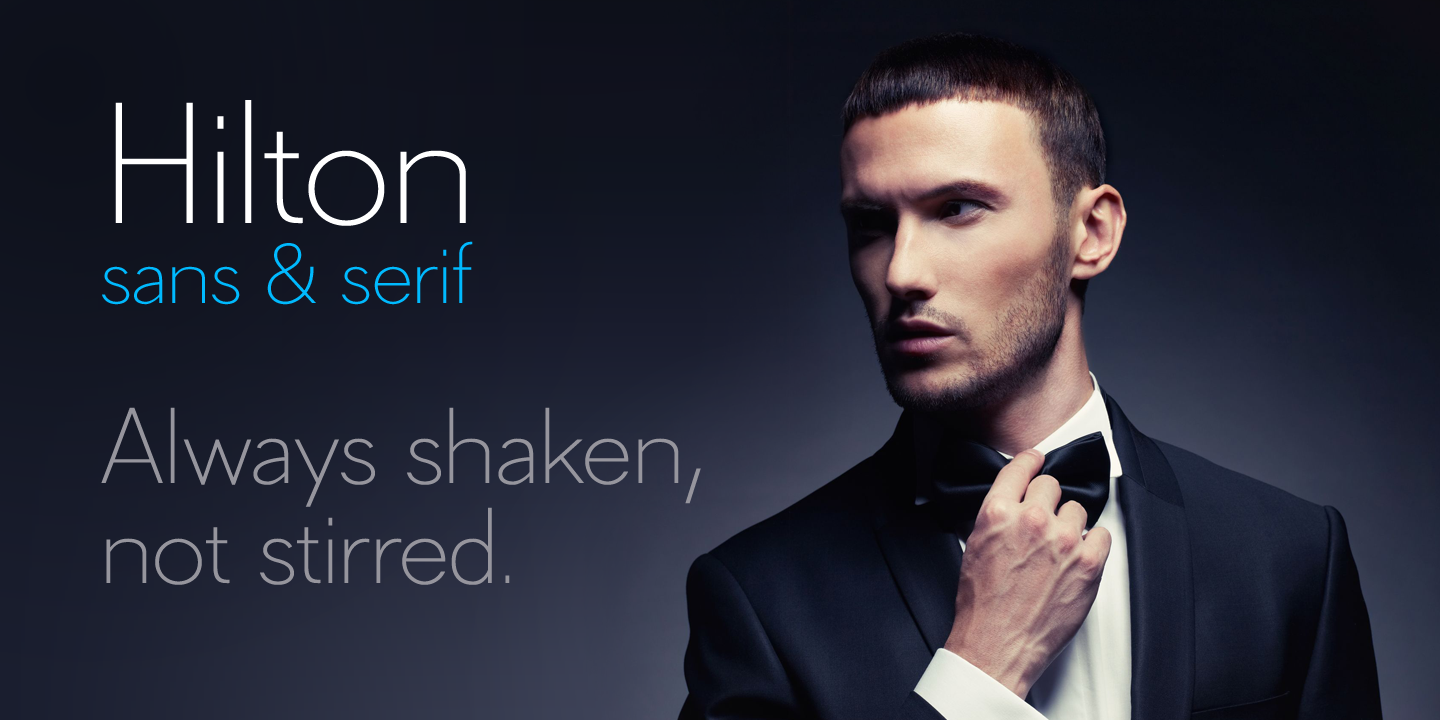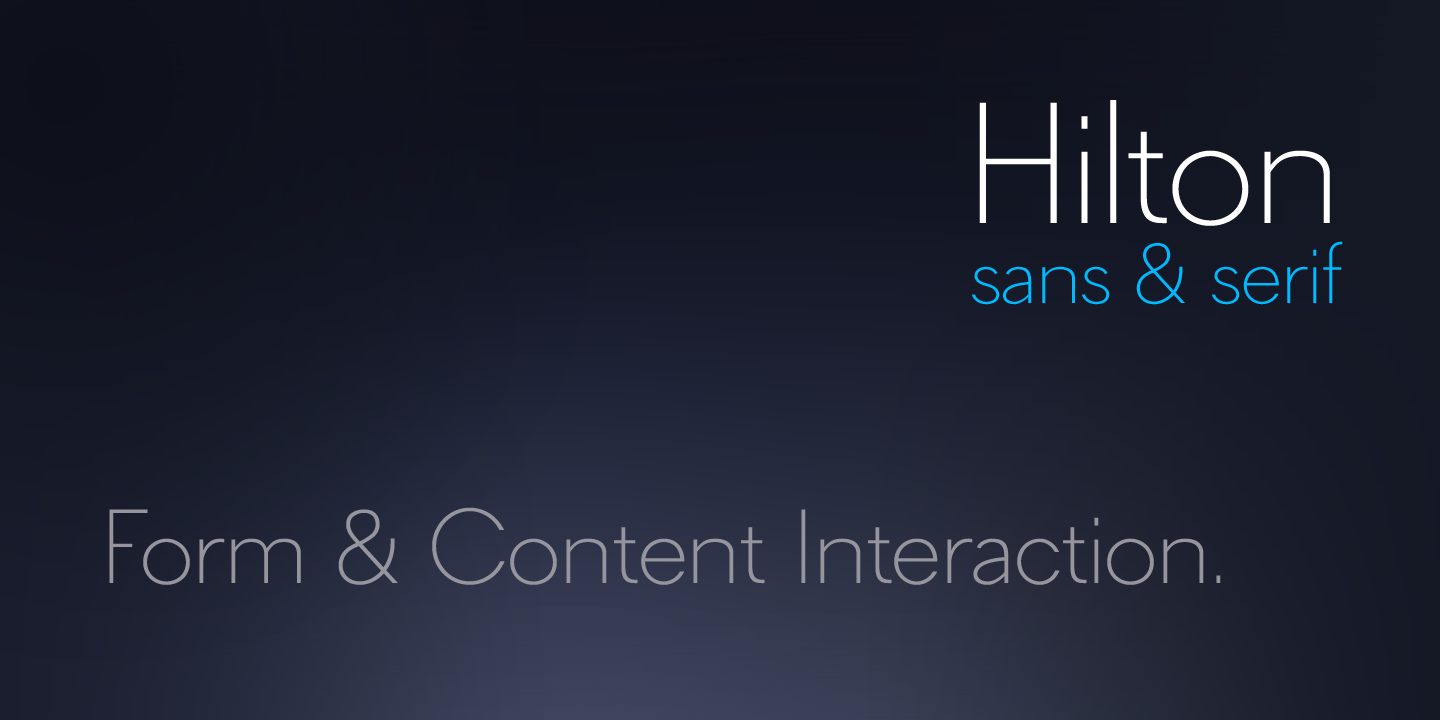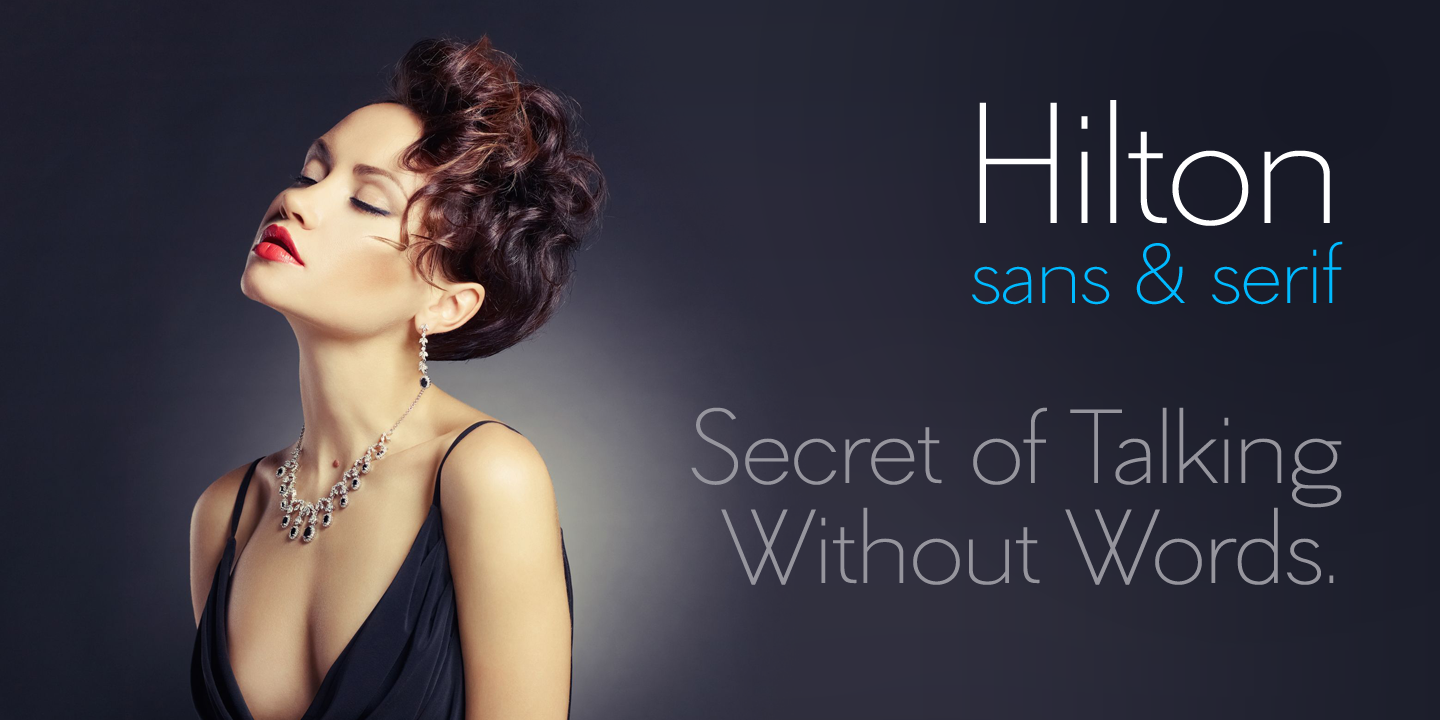
Hilton Serif (1 font)
From Juraj Chrastina Type
Hilton Sans and Hilton Serif is a pair of highly legible, subtle and elegant sans-serif and semi-serif display faces.